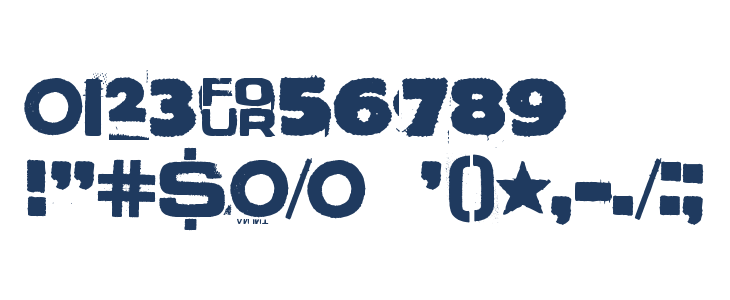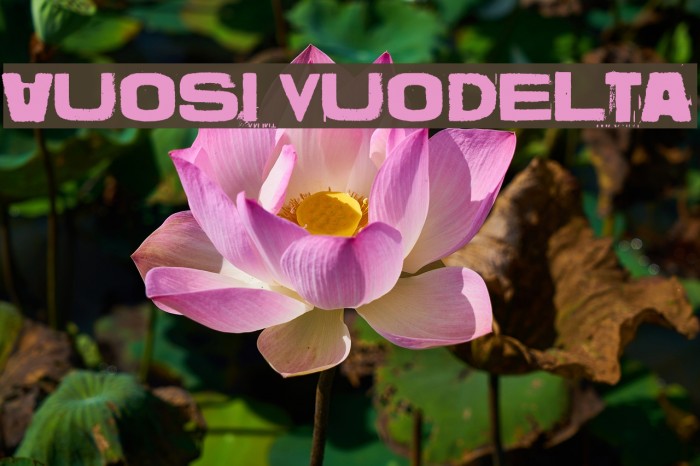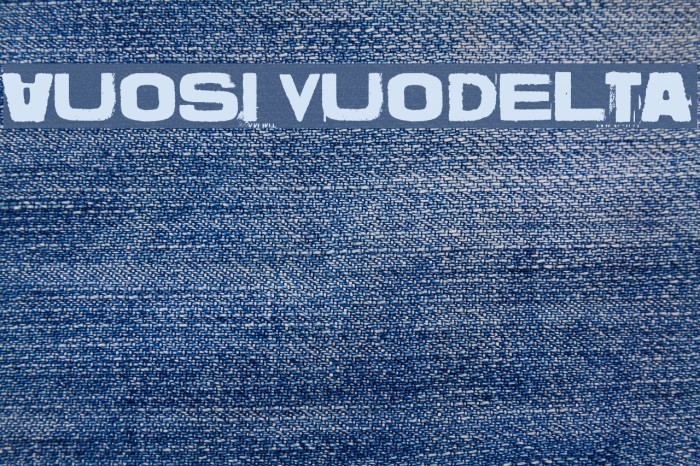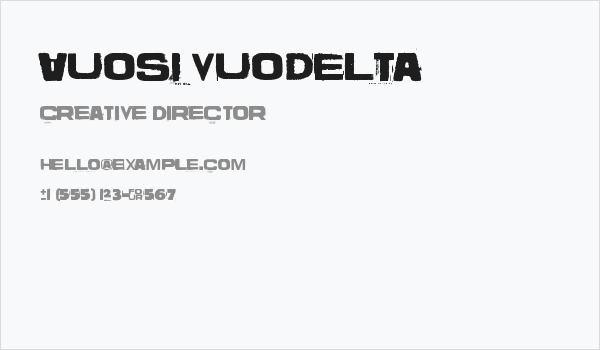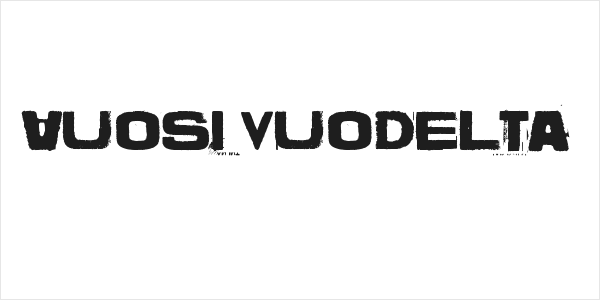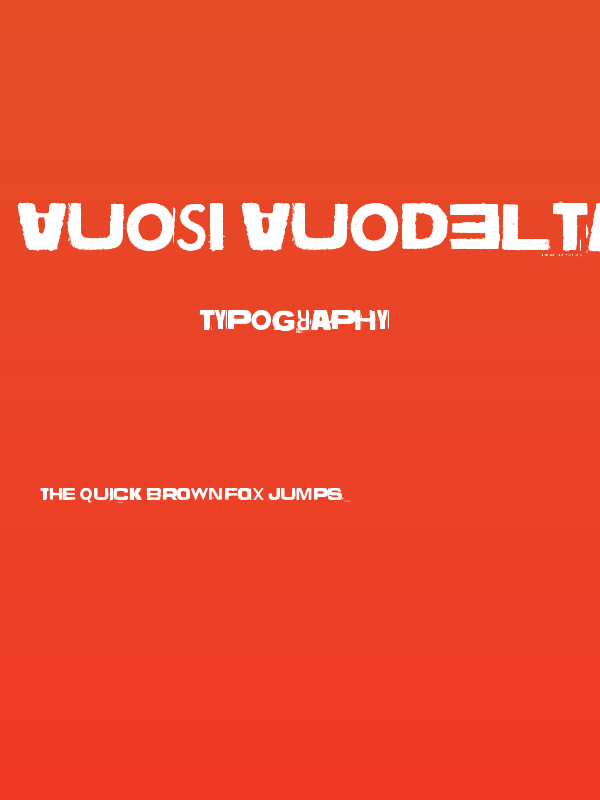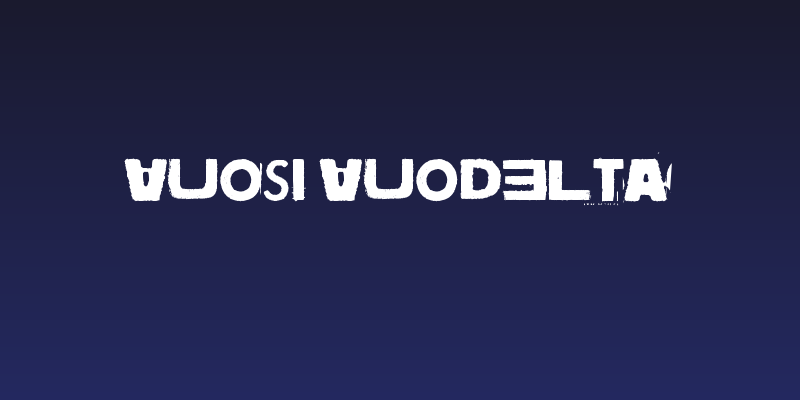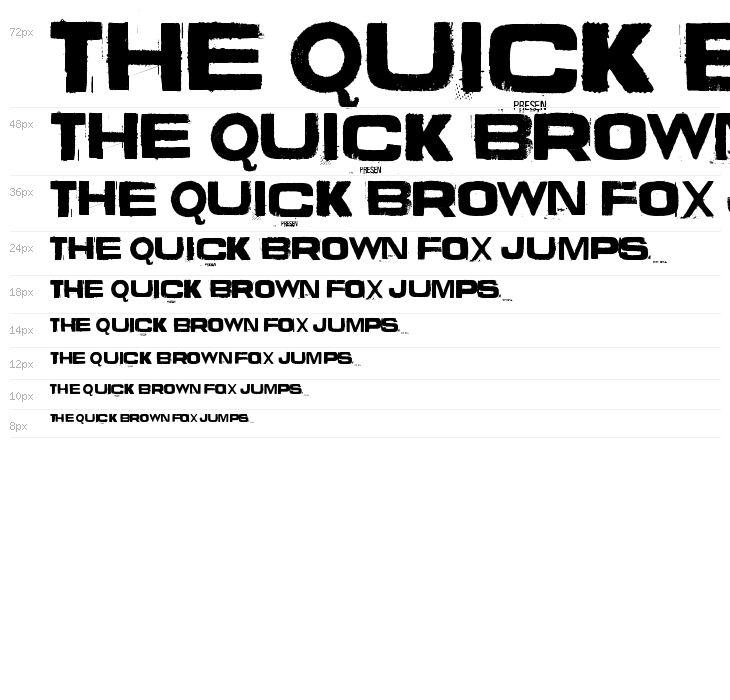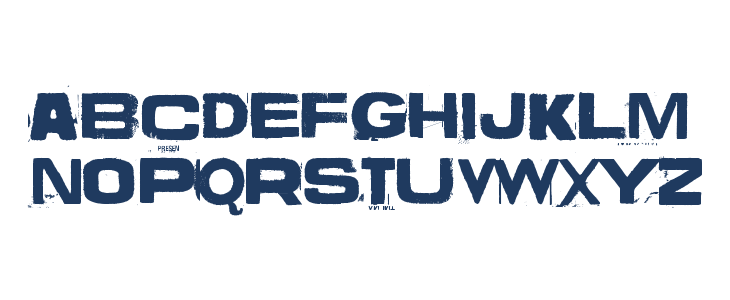
Vuosi vuodelta Font
Vuosi vuodelta Description
This font features a bold, distressed style with a stencil-like appearance. The characters are thick and robust, with a rough texture that gives them a worn, industrial look. The uppercase letters are uniform in height, while the lowercase letters maintain a consistent baseline, adding to the cohesive design. The numerals and special characters follow the same rugged aesthetic, making the font suitable for impactful and gritty designs. The overall style is reminiscent of military or industrial signage, with a strong emphasis on boldness and visibility.
| Overall Style | Industrial, Rugged, Stencil |
| Proposed Projects | Ideal for projects requiring a strong, impactful look, such as posters, album covers, or branding for industrial-themed products. |